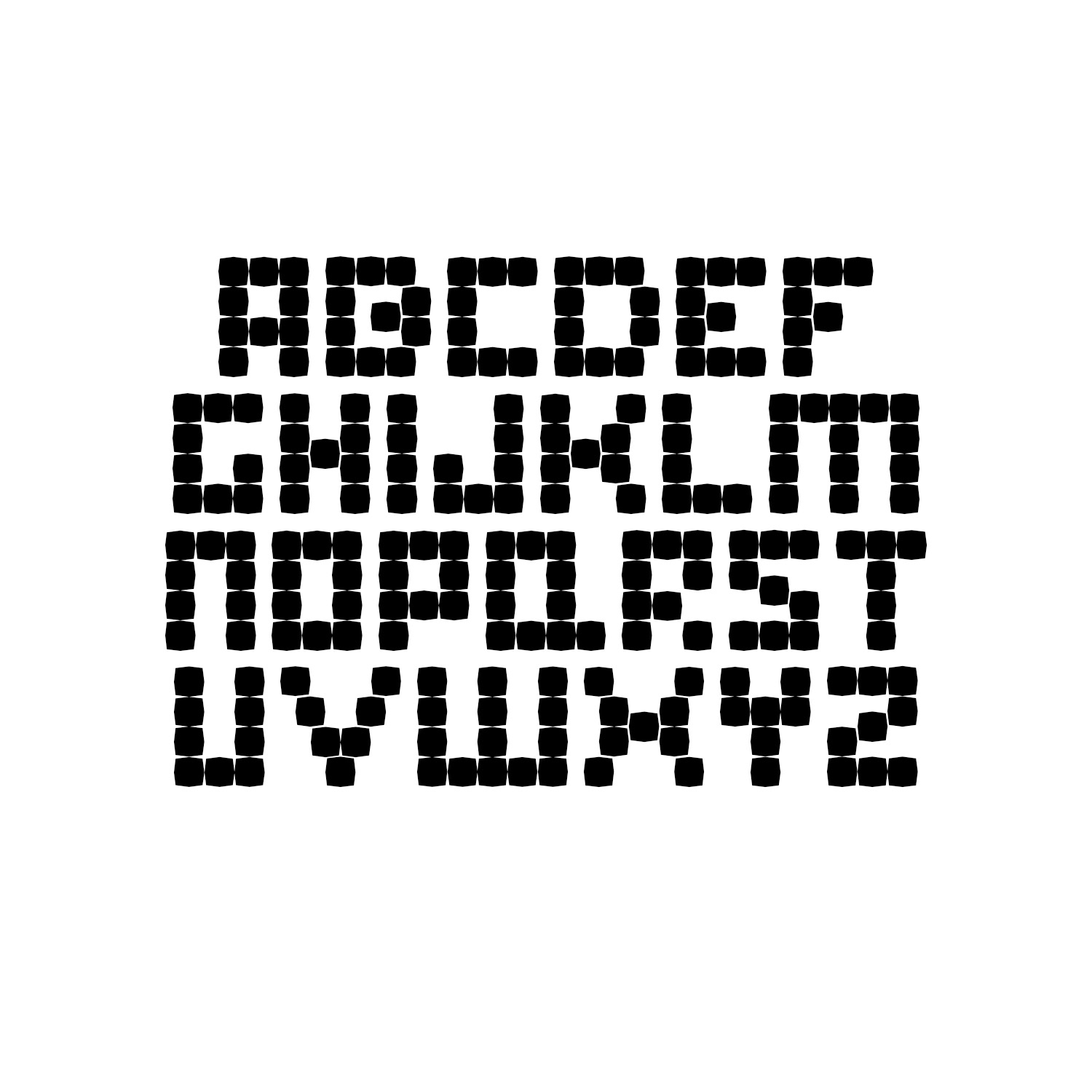
'Stacks' by David Jon Walker Weekly Type STACKS by David Jon Walker, WeTypeInspired by the geometric blocks of the Beinecke Rare Books and Manuscripts Library at Yale University, Stacks is a bold grid based, monospaced font.